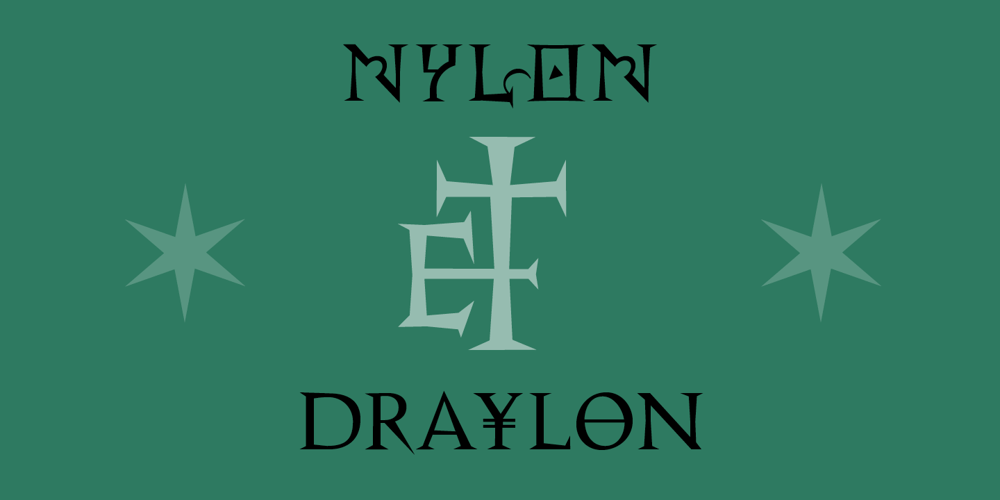
Nylon and Draylon
Nylon and Draylon font
Nylon and Draylon Font Family was designed by Jonathan Barnbrook and published by Barnbrook Fonts. Nylon and Draylon contains 2 styles and family package options. Nylon is an interpretation of pre-16th century letterforms, in particular those found in mediaeval portraits at the National Gallery, London. The source material contains many unusual and manic shapes—it appears as if these classical forms have, over time, become perverted, almost demonic. Draylon is the more restrained counterpart to Nylon; it is based on letterforms found on 18th century ceramics—some 200 years after the source material of Nylon. Nylon and Draylon have been designed so that they can be mixed together with ease. Both typefaces have been drawn with a kind of crude digital awkwardness—acknowledging the tool of the present moment, the computer, in the design process.